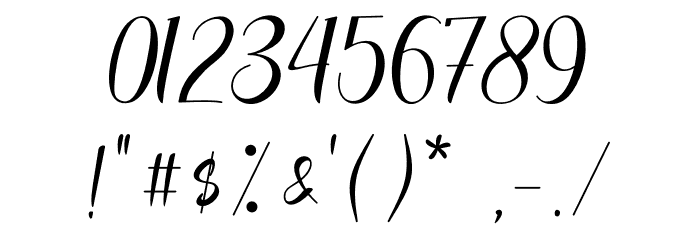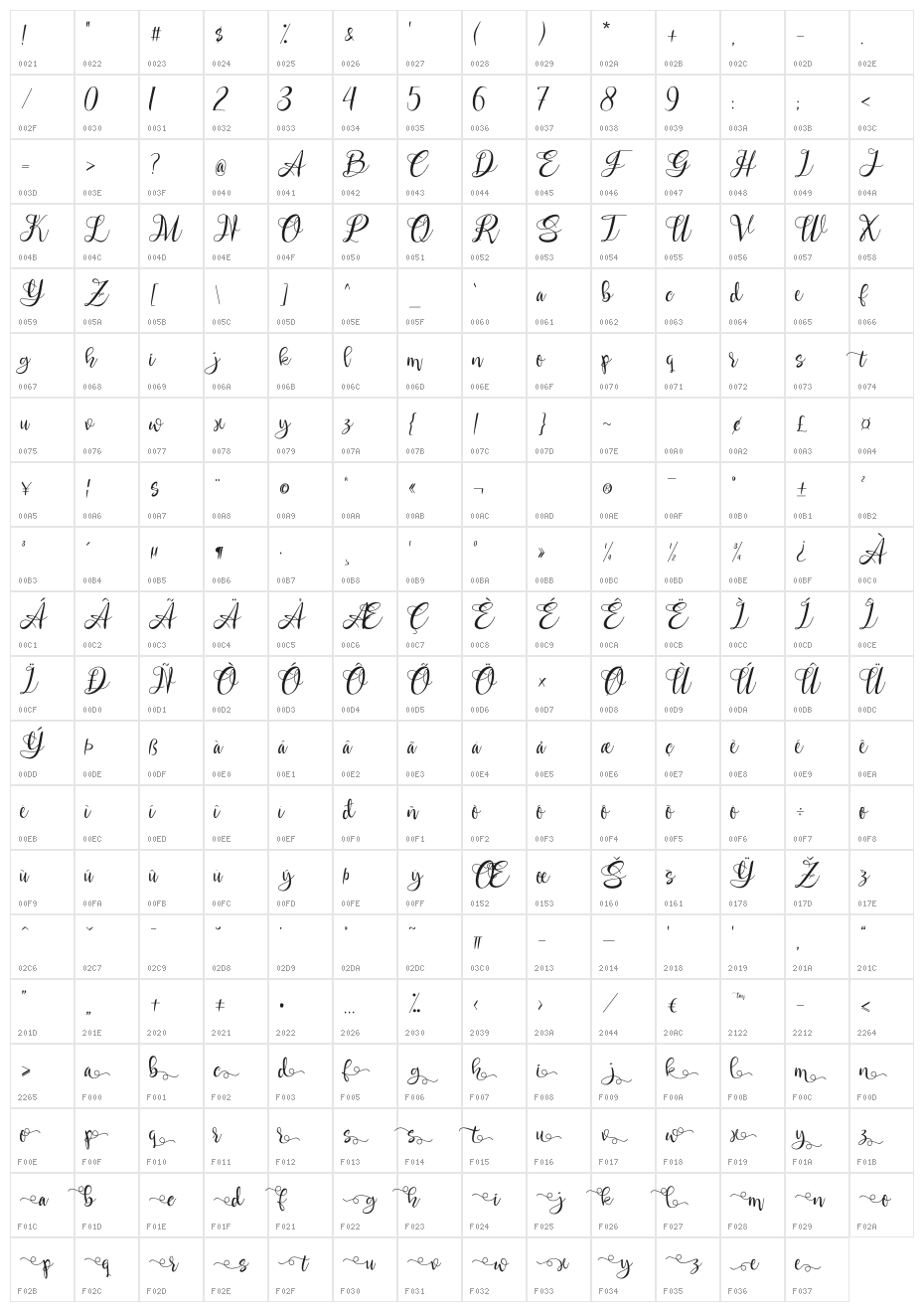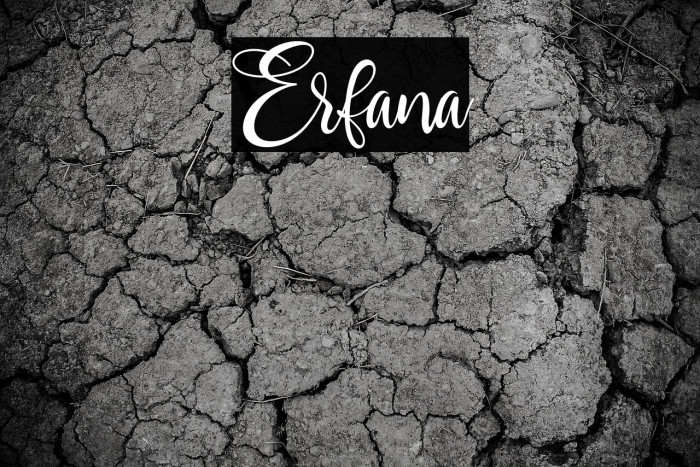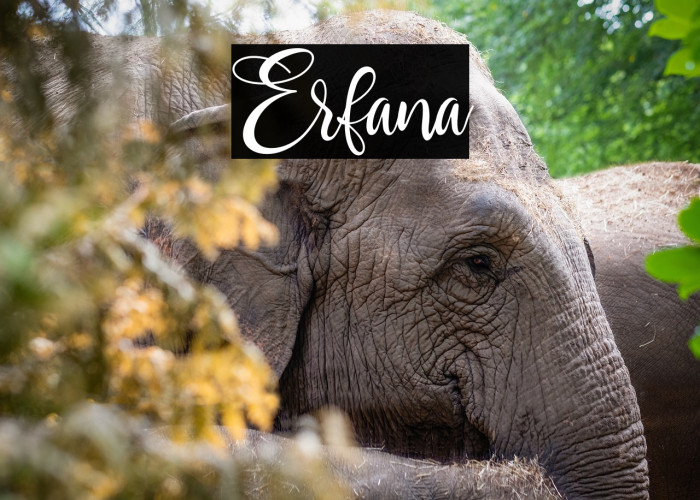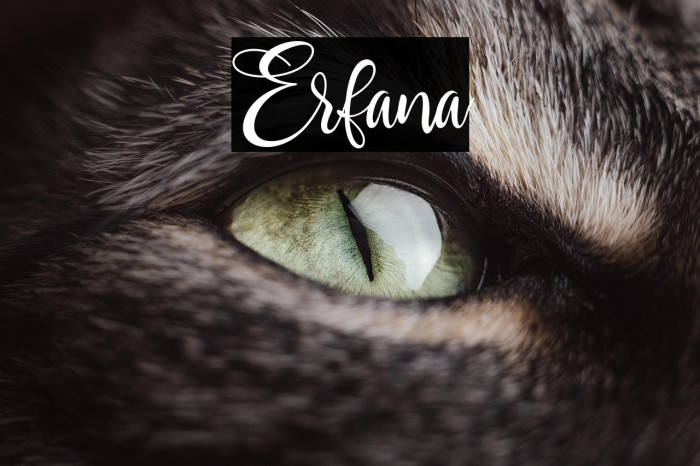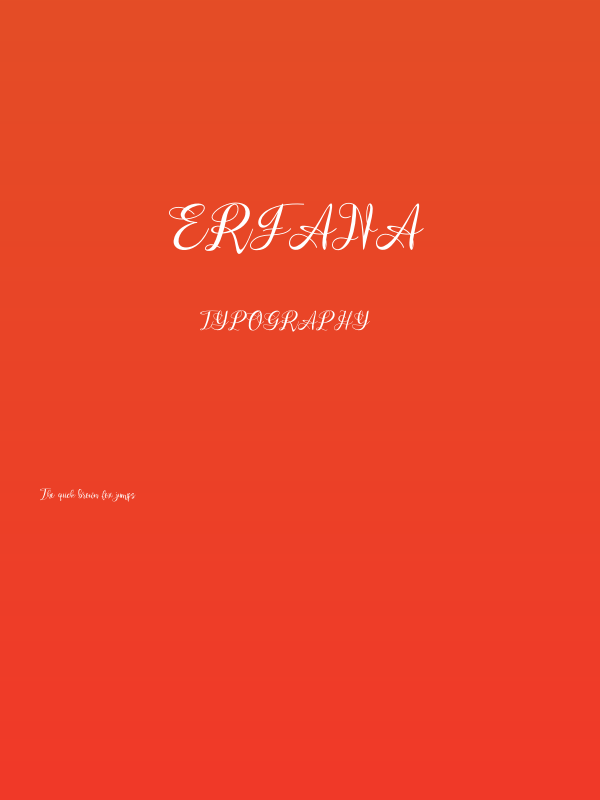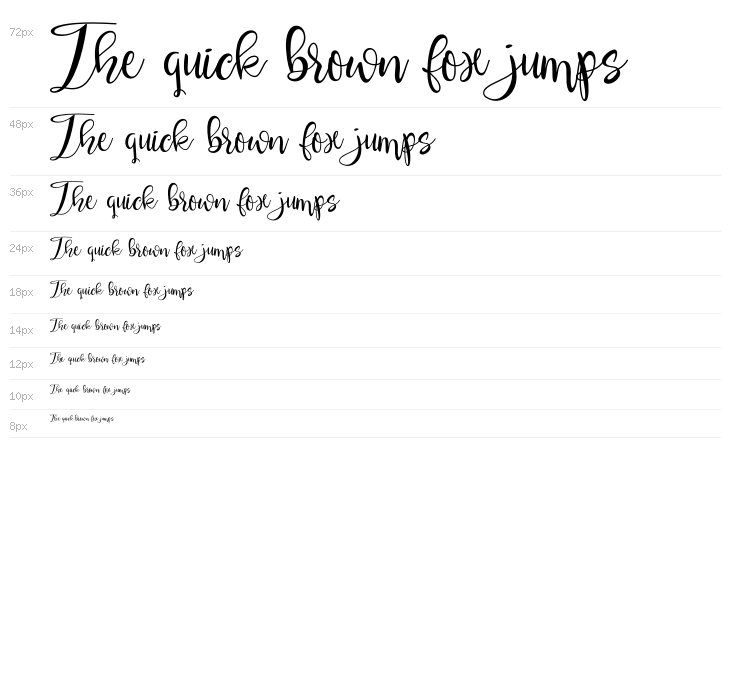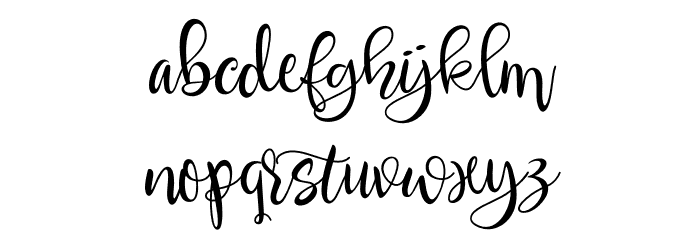
Erfana Font
Erfana Description
This elegant script font features flowing, interconnected letters that exude a sense of sophistication and style. The uppercase letters are characterized by their graceful loops and swirls, while the lowercase letters maintain a smooth, cursive flow. The numerals are distinct and maintain the font's overall fluidity. Special characters are thoughtfully designed to complement the script style. This font is perfect for adding a touch of elegance to any project, with its intricate details and artistic flair.
| Proposed Projects | Ideal for wedding invitations, greeting cards, branding, and elegant logo designs. |